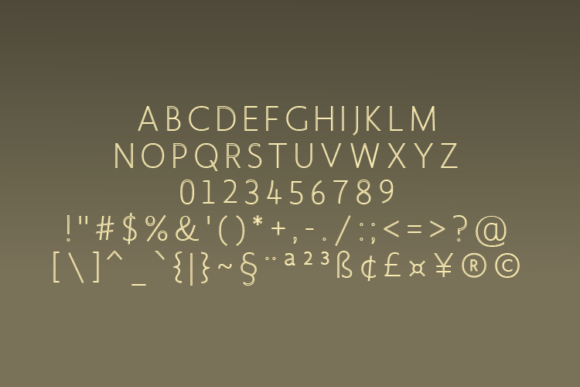
Introducing Blankco Outline Thin Font: A Fresh Geometric Sans-Serif for Modern Design
In the realm of typography, a new font has emerged that’s making waves among designers and crafters alike. Say hello to Blankco Outline Thin Font, a geometric sans-serif font that’s as versatile as it is visually stunning. In this article, we’ll dive into the features, benefits, and uses of Blankco Outline, exploring how it can elevate your design projects to new heights.
What is Blankco Outline Thin Font?
Blankco Outline Thin Font is a part of the Blankco font family, characterized by its geometric letterforms, sharp edges, and small stroke contrast. This fresh, modern font is reminiscent of the neo-grotesk fonts of the 20th Century, but with a unique twist that sets it apart from its predecessors. The Blankco font family is designed to be extremely versatile, making it suitable for a wide range of applications, from magazines and posters to branding, websites, and more.
Key Features of Blankco Outline Thin Font
- Big x-height value: The Blankco font boasts a large x-height, which improves readability, especially in digital formats. This feature makes it perfect for body text, captions, and other applications where legibility is crucial.
- Geometrical letterforms: The font’s geometric shapes give it a modern, clean look that’s perfect for designs that require a touch of sophistication.
- Sharp edges: The sharp edges of Blankco Outline add a level of precision and crispness to your designs, making it ideal for headlines, titles, and other attention-grabbing elements.
- Small stroke contrast: The subtle stroke contrast in Blankco Outline creates a sense of harmony and balance, allowing the font to work well in a variety of design contexts.
Uses of Blankco Outline Thin Font
One of the standout features of Blankco Outline Thin Font is its versatility. Here are some of the many ways you can use this font in your design projects:
- Magazines and newspapers: The clear, readable design of Blankco Outline makes it perfect for body text, articles, and captions.
- Posters and flyers: The font’s geometric shapes and sharp edges make it a great choice for headlines and titles that need to grab attention.
- Branding and logos: Blankco Outline’s modern, clean design makes it an excellent choice for logos, business cards, and other branding materials.
- Websites and digital platforms: The font’s legibility and adaptability make it well-suited for digital applications, including website headers, paragraphs, and UI elements.
Benefits of Using Blankco Outline Thin Font
So why should you choose Blankco Outline Thin Font for your next design project? Here are just a few benefits:
- Improved readability: The font’s clear, geometric design makes it easy to read, even at small sizes.
- Enhanced visual appeal: The sharp edges and subtle stroke contrast of Blankco Outline add a touch of sophistication to your designs.
- Flexibility: The font’s versatility means you can use it in a wide range of applications, from print to digital.
- Modern aesthetic: Blankco Outline’s geometric shapes and clean design give your projects a fresh, modern look that’s sure to impress.
Blankco Outline Thin Font is a powerful tool for designers and crafters looking to elevate their projects with a fresh, modern aesthetic. With its geometric letterforms, sharp edges, and small stroke contrast, this font is perfect for a wide range of applications, from magazines and posters to branding and digital platforms. Whether you’re looking to improve readability, enhance visual appeal, or simply add a touch of sophistication to your designs, Blankco Outline Thin Font is an excellent choice.